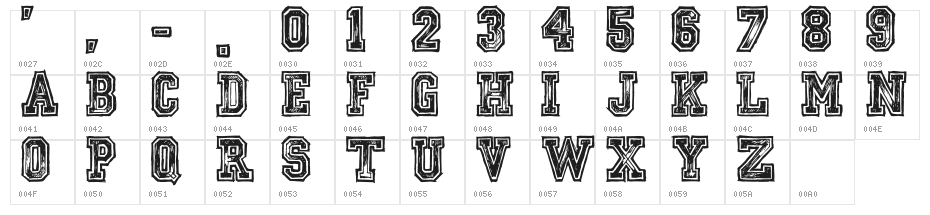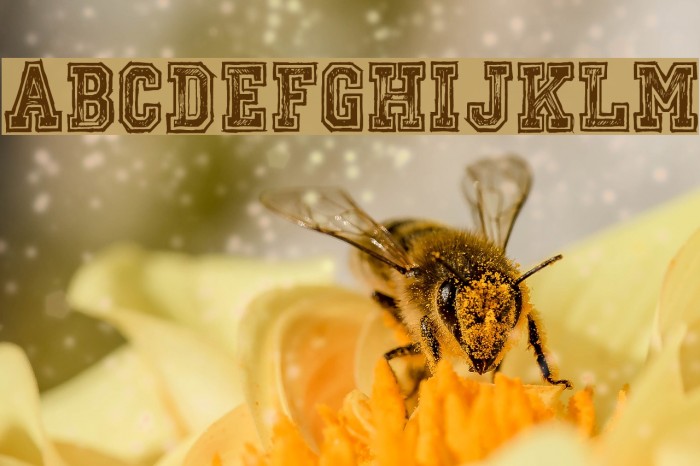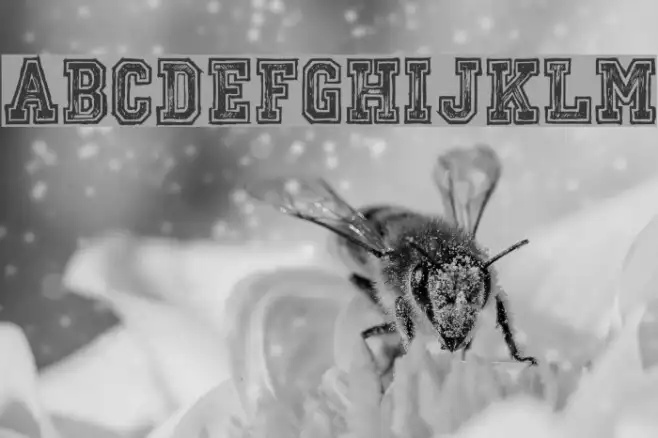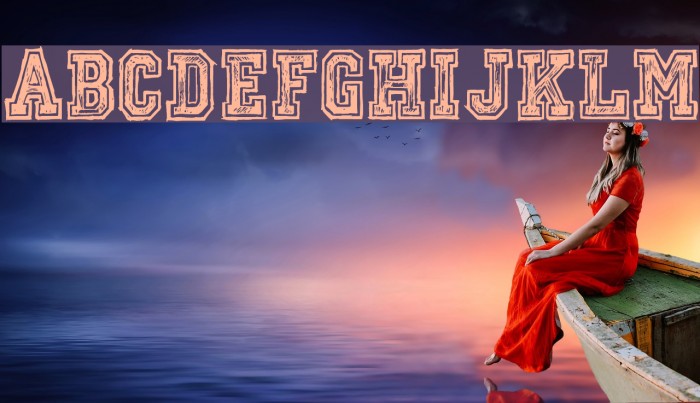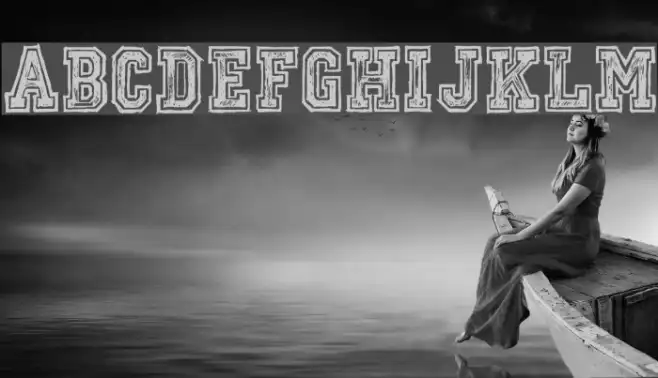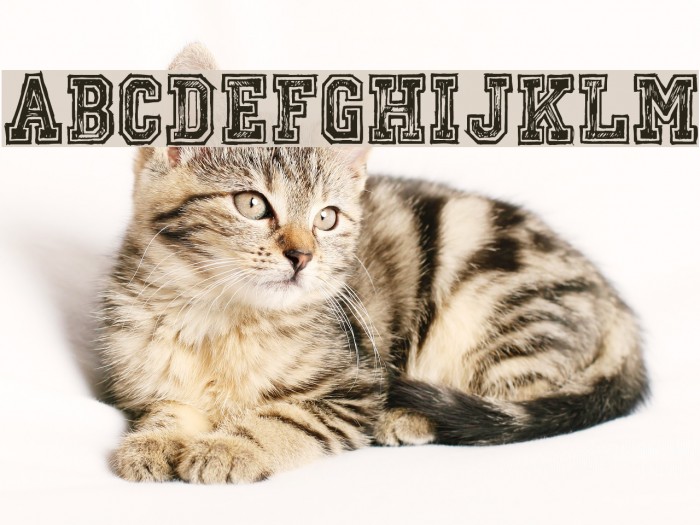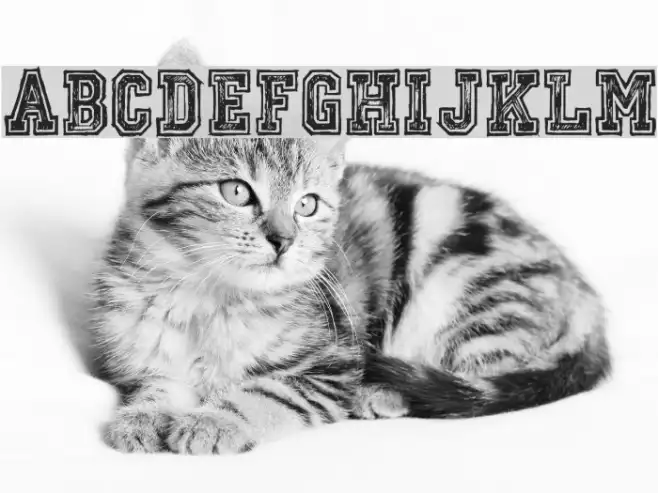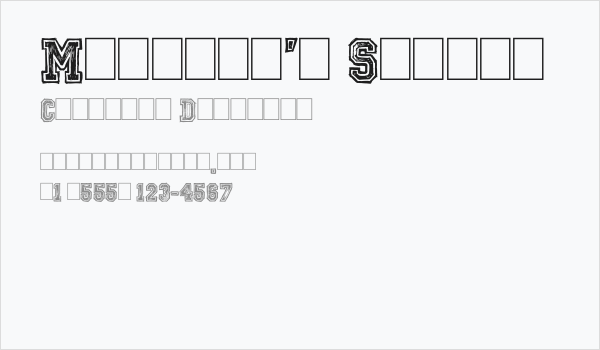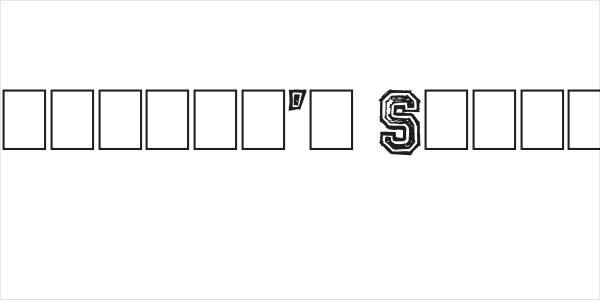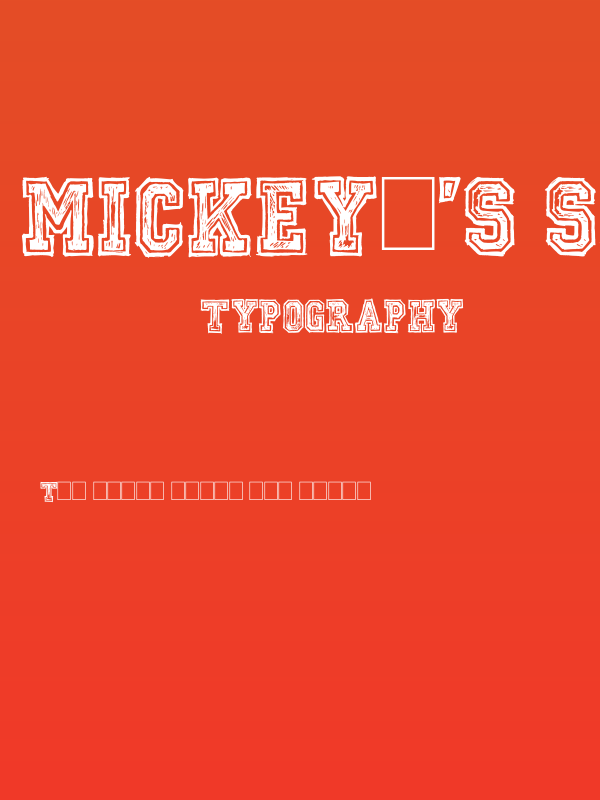
Mickey's School Font
Mickey's School Description
This font features a bold, decorative style with a playful and whimsical touch. Each character is outlined with a thick border, giving it a three-dimensional appearance. The interior of the letters is filled with intricate, sketch-like patterns, adding a textured look that enhances its visual appeal. The uppercase letters are prominent and commanding, while the numbers maintain the same decorative style, ensuring consistency across all characters. The font's unique design makes it stand out, making it ideal for projects that require a fun and engaging aesthetic.
| Proposed Projects | Ideal for children's book covers, playful posters, themed party invitations, and any project that requires a fun and engaging typeface. |